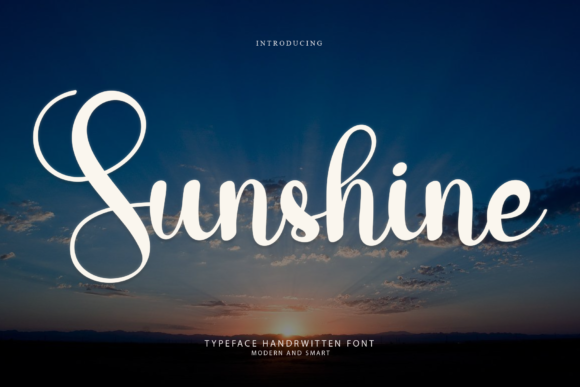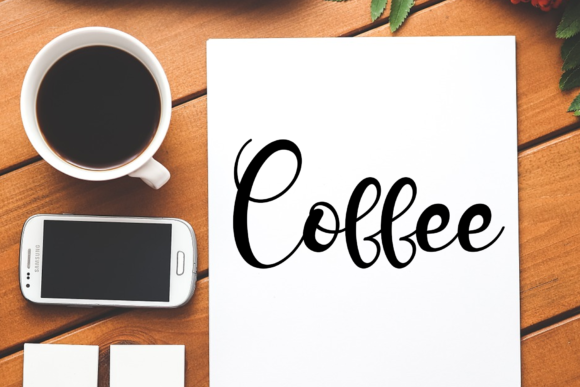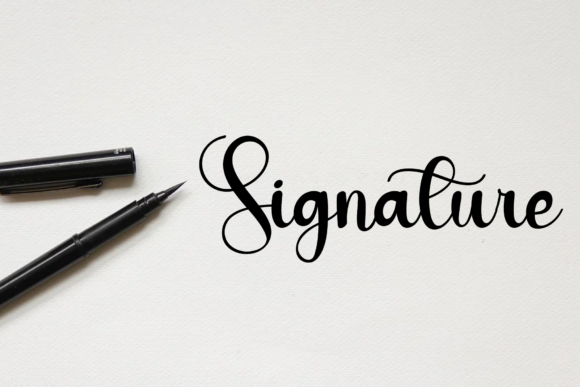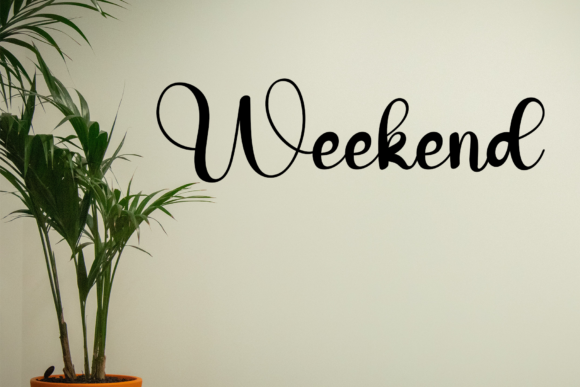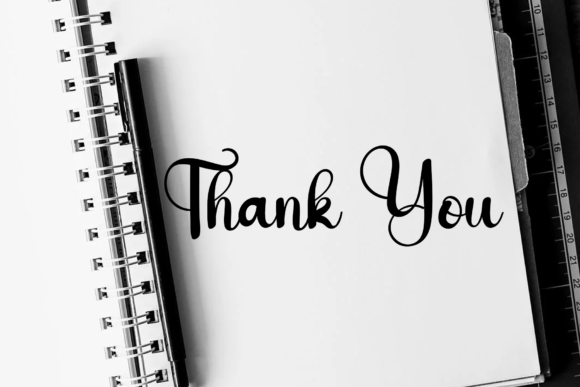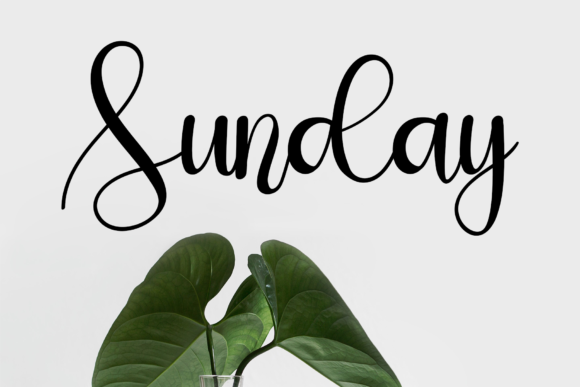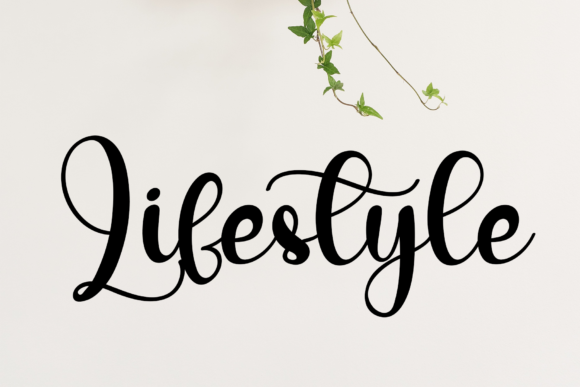
Sunshine Font
About Sunshine Font
Introducing Sunshine, a unique and round-lettered handwritten font meticulously crafted to deliver the desired results. This font offers a distinct aesthetic and is well-suited for writing titles, invitations, letters, and a variety of other creative products.
The uniqueness of Sunshine lies in its round letterforms, which add a touch of originality and character to each written element. Imagine utilizing this font to create eye-catching titles that stand out with their distinctive and playful style. Envision it on invitations, where the rounded letters contribute to a friendly and approachable atmosphere. Whether applied to letters or any other creative project, Sunshine becomes a versatile tool for infusing a unique and personalized touch.
The careful craftsmanship of Sunshine ensures a cohesive and visually appealing look for your projects. Its round letterforms bring a sense of friendliness and warmth, making it suitable for a range of applications.
Select Sunshine as the font that brings a unique and round-lettered charm to your creative pursuits. Let its distinctive style enhance the impact of your titles, invitations, letters, and more. Allow Sunshine to be the creative touch that distinguishes your projects with its original and carefully crafted design.